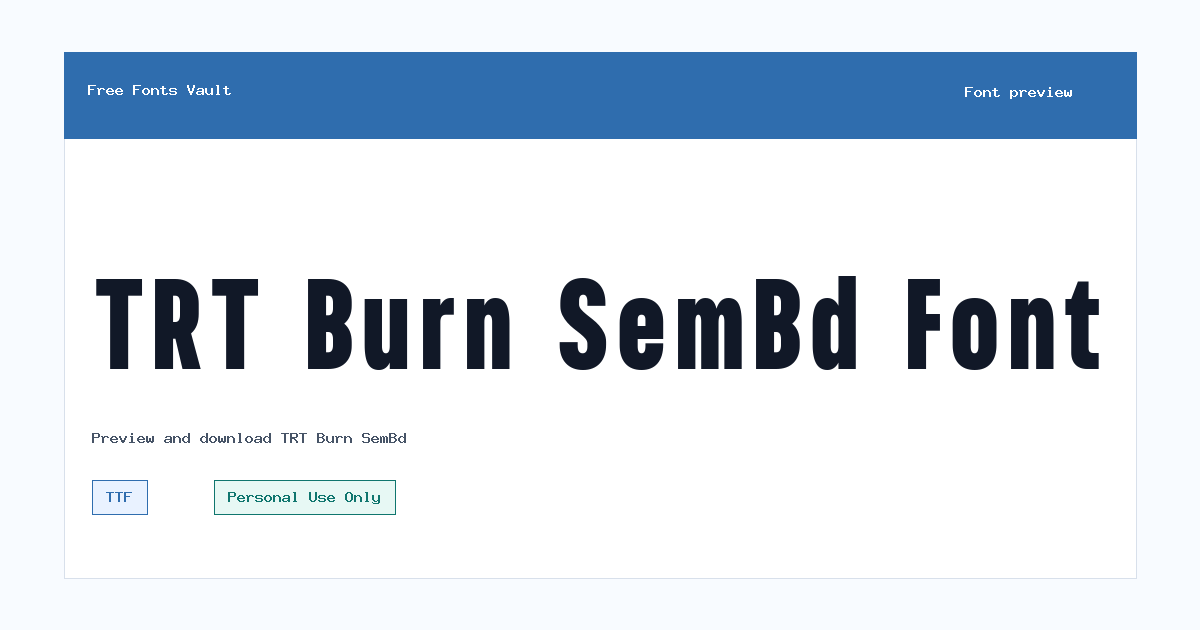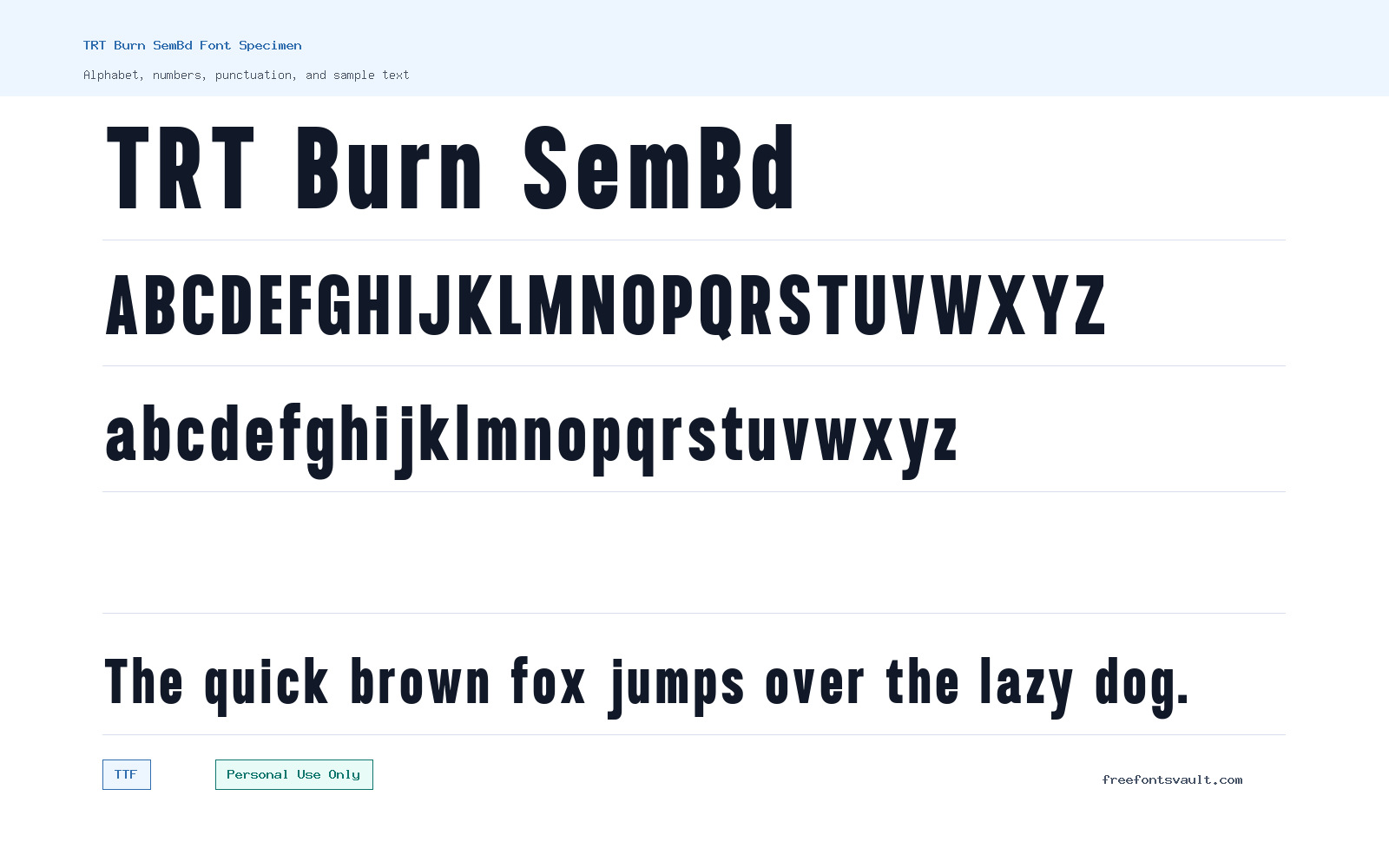
TRT Burn SemBd
- Designer Zainaldi Ibrahim of Truetype
- Foundry Truetype
TRT Burn SemBd is a semi-bold sans serif font with a strong display feel, made for short text that needs weight, structure, and clear visual presence.
About TRT Burn SemBd
TRT Burn SemBd works best when you need a heavier sans serif look without moving into an ultra-black or overly compressed style. The available font file is a TrueType font, with a normal style and a 700 weight, so it is suited to headlines, labels, title text, and other places where a semi-bold voice is more useful than a light body-text face. Its name points to the TRT Burn family, and the listed file is the SemiBold demo version. That makes it a practical choice for testing a bold brand direction, poster heading, social graphic, or interface mockup before deciding whether the wider family or a commercial license is needed.
For designers, TRT Burn SemBd is most useful in controlled, short-format settings. Try it in logo drafts, product-name treatments, event posters, YouTube thumbnail text, website hero headings, and packaging-style mockups. Because this page lists a single semi-bold TTF variant, it is better to treat the font as a display tool rather than a complete typography system. Use it for the part of a layout that needs emphasis, then pair it with a calmer sans serif or a readable serif for longer descriptions. In a web mockup, test it at several sizes and check letter spacing carefully; heavier sans serif fonts can look tight in all caps, especially in narrow buttons, badges, or stacked title lines.
- Semi-bold 700 weight for strong headings, logo drafts, and display text
- Normal style variant, useful for clean headline treatments without italic styling
- Sans serif design direction for modern-looking titles, mockups, and short labels
- Poster headlines and event title graphics
- Logo concepts and brand-name experiments
- Website hero text and landing page mockups
- Social media graphics, thumbnails, and banners
- Packaging-style mockups and product title layouts
- Short display labels, badges, and navigation concepts
The designer is listed as Zainaldi Ibrahim of Truetype, with Truetype also listed as the foundry.
Use TRT Burn SemBd where a layout needs a firm headline or logo-style treatment, not for long reading passages. Start with short words or one-line headings, then adjust tracking and spacing in your design software. If you are building a poster or social graphic, test both uppercase and title case, because the same weight can feel very different depending on capitalization. For web and app mockups, keep it mostly for hero text, section titles, buttons, or promo blocks, and pair it with a neutral body font so the page remains easy to read. If you plan to use it in a logo, client identity, product label, paid campaign, or commercial website, confirm the license first.
What kind of font is TRT Burn SemBd?
TRT Burn SemBd is listed as a sans serif font in a semi-bold 700 weight. It is best treated as a display font for headings, logos, posters, and short design text.
Is TRT Burn SemBd good for body text?
It is better for short, prominent text than for long paragraphs. Use it for headings or display elements, then pair it with a more readable text font for descriptions and articles.
What fonts pair well with TRT Burn SemBd?
Pair it with a simple, neutral sans serif for a clean layout, or with a readable serif if you want more contrast. Keep the companion font quieter so TRT Burn SemBd can carry the main headline.